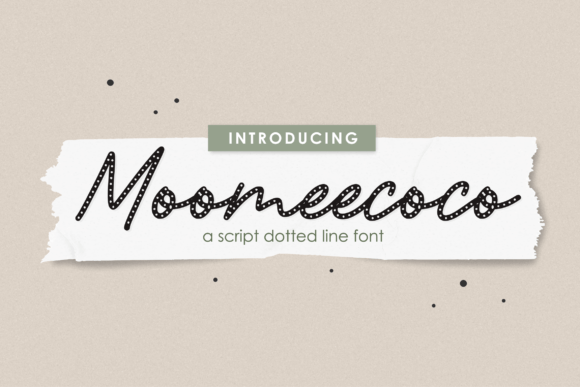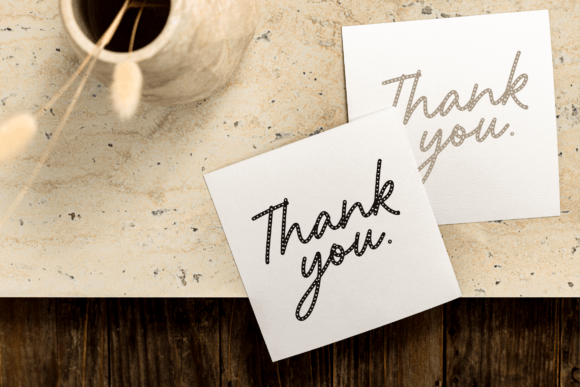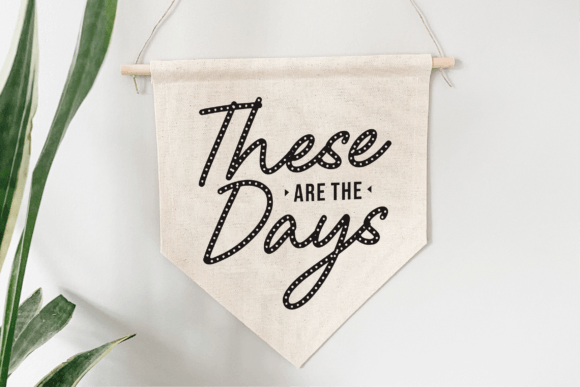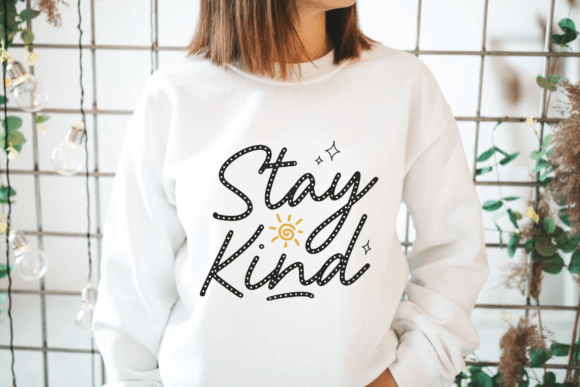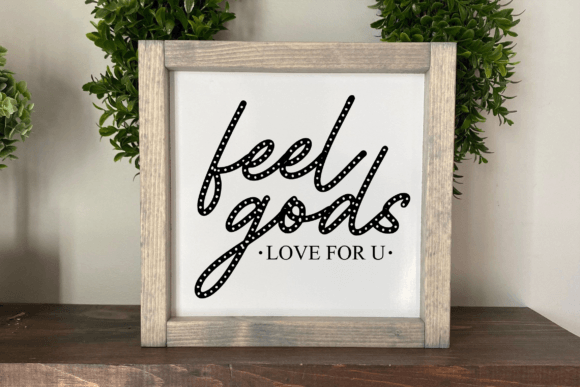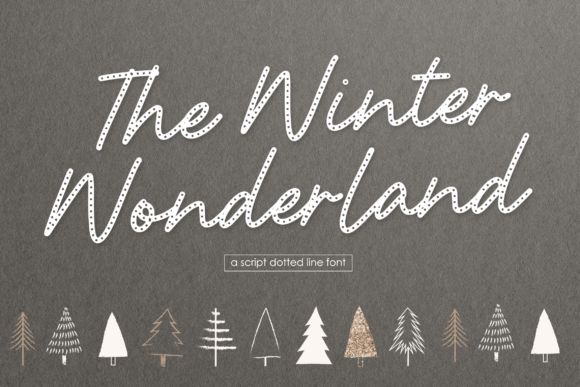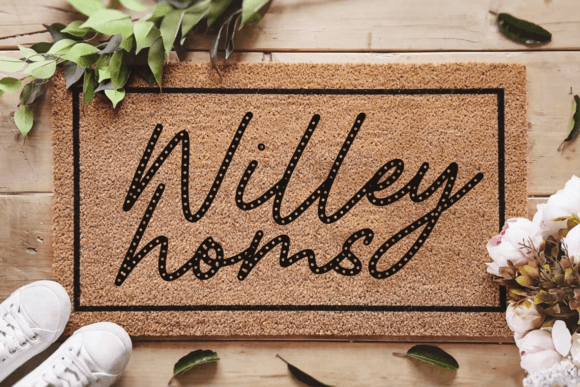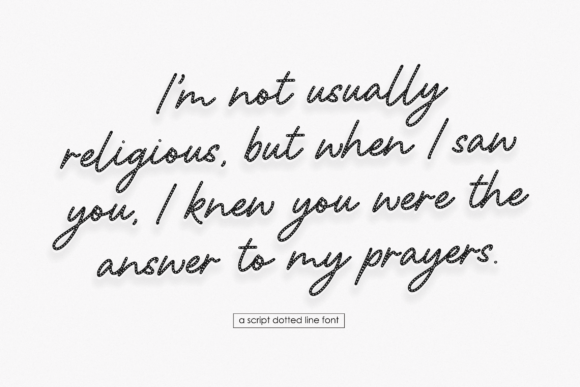
Moomeecoco Font
About Moomeecoco Font
Introducing Moomeecoco, a dotted line handwritten font that adds a unique touch to your creative projects. Perfect for product packaging, branding projects, magazines, social media, weddings, or any context where you want to express words above the background in a distinctive way. Moomeecoco is not just a font; it’s a beautiful and unique asset that will undoubtedly become a standout addition to your fonts library!
Moomeecoco’s dotted line handwriting style brings a playful and creative element to your designs. The distinctive dots create a visually interesting and charming texture, making it suitable for a wide range of applications.
Imagine Moomeecoco enhancing your product packaging, adding a touch of whimsy and uniqueness to your brand. Picture it standing out in magazines, social media posts, or wedding invitations, where its dotted line elegance adds a delightful flair.
Moomeecoco is designed to be beautiful and unique, making it a versatile choice for expressing your creativity across various projects. Its distinctiveness ensures that it becomes a standout asset in your font library, ready to bring a touch of character to your designs.
Add Moomeecoco to your font collection, and witness how it becomes a great asset for infusing beauty and uniqueness into your creative projects. Let its dotted line handwritten charm be the secret ingredient that makes your designs truly special and memorable!